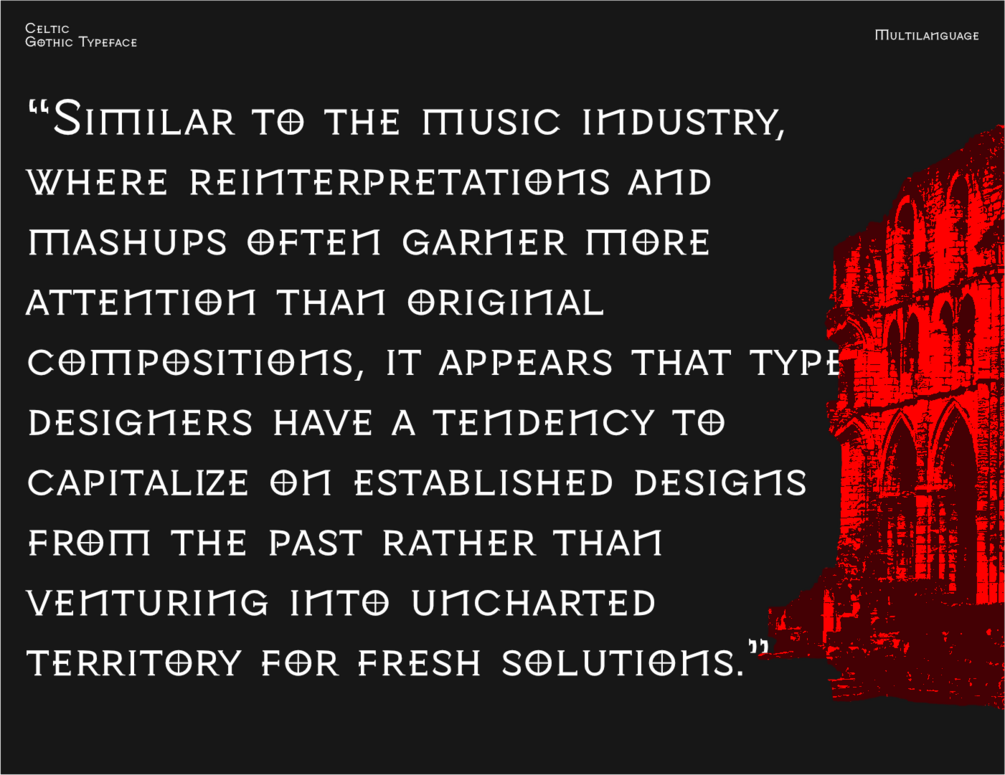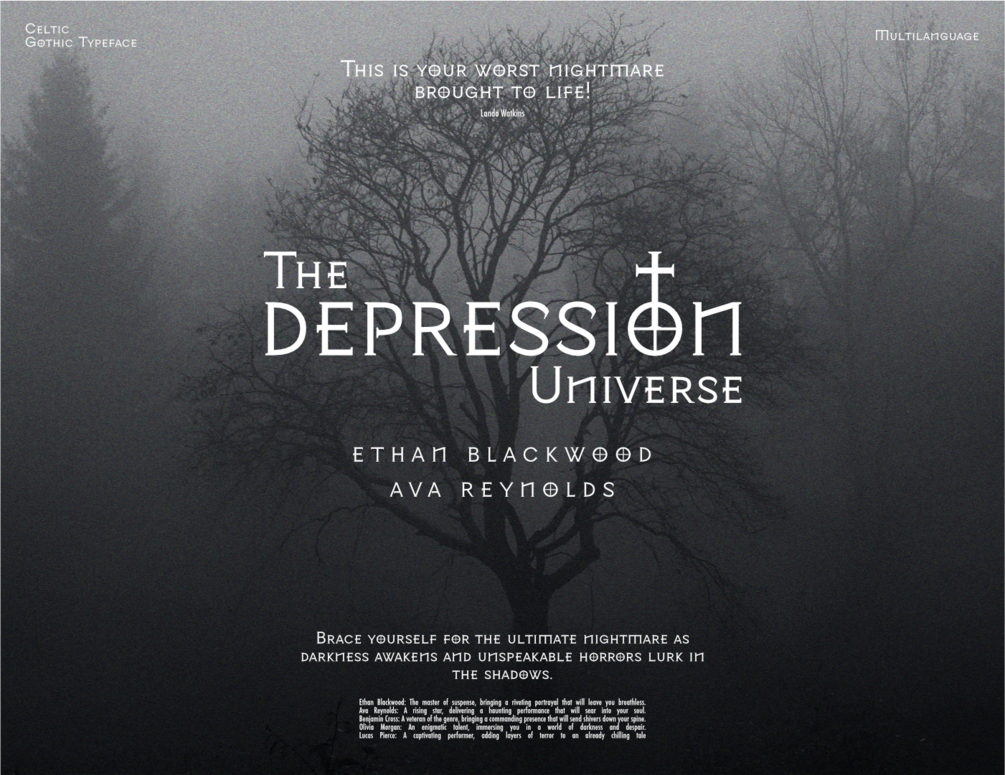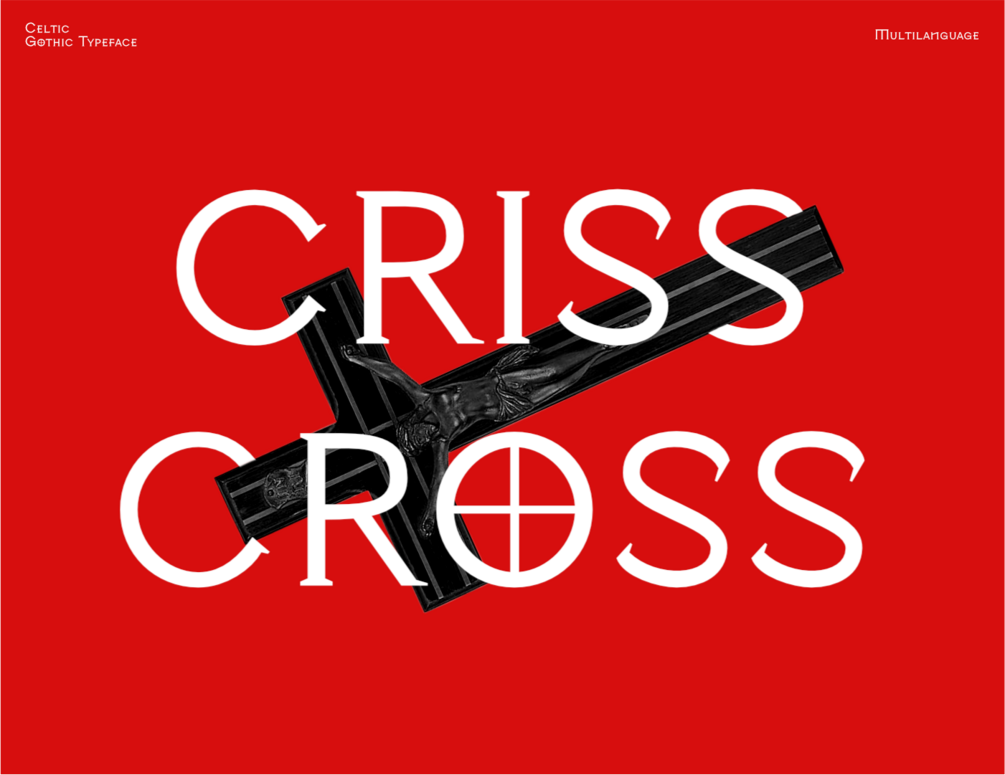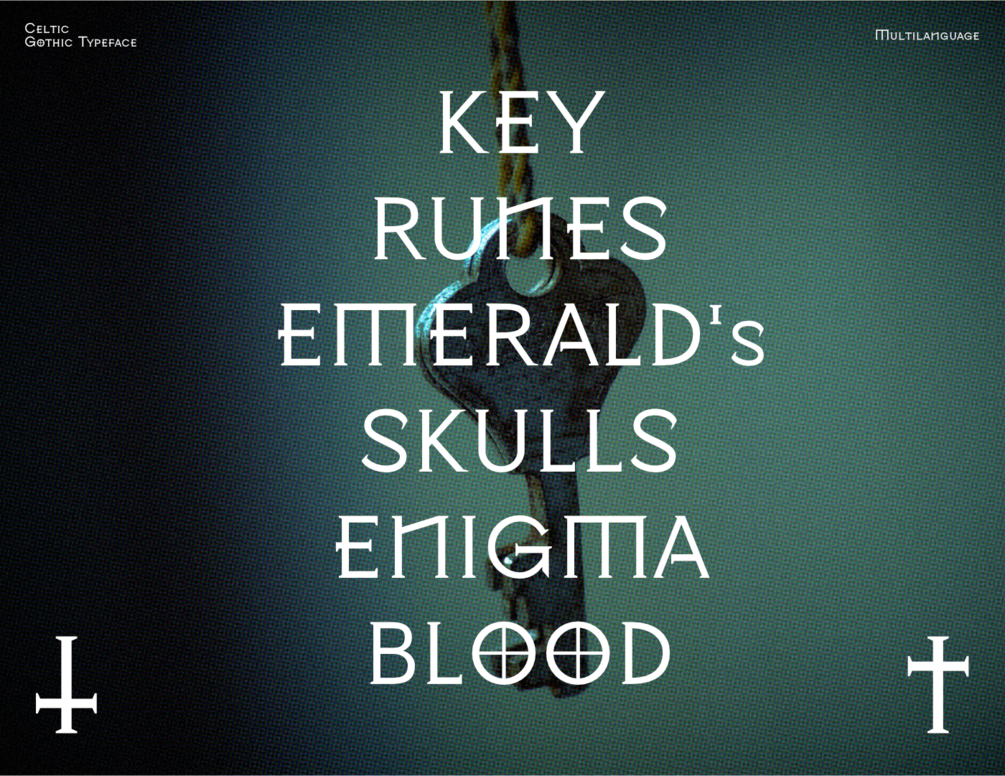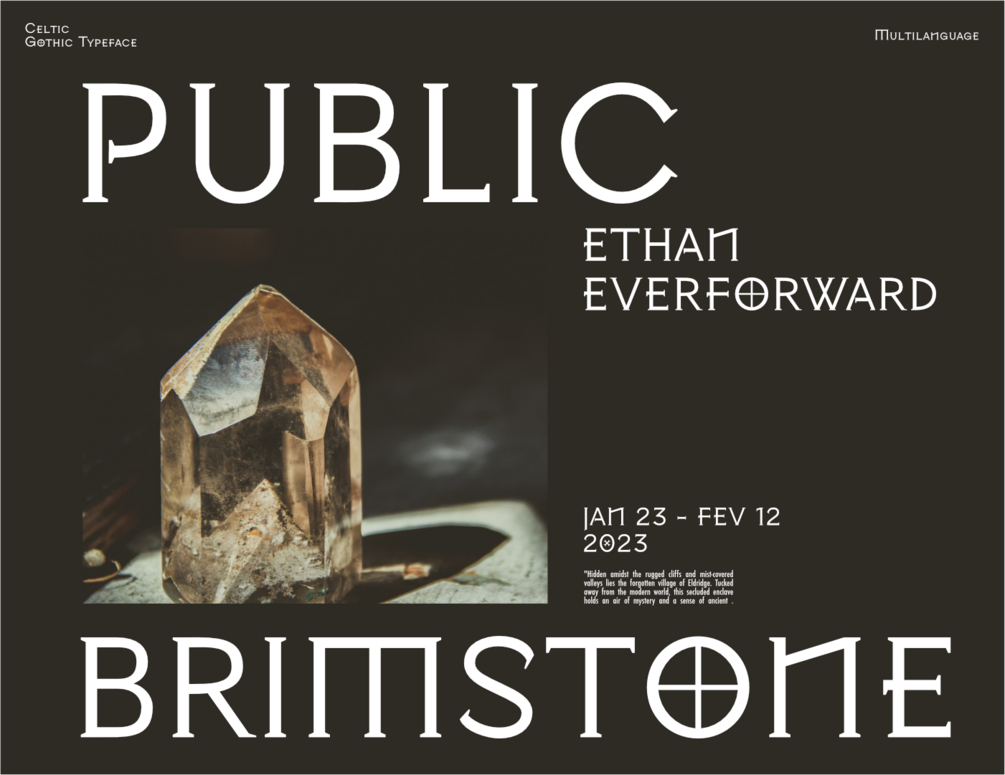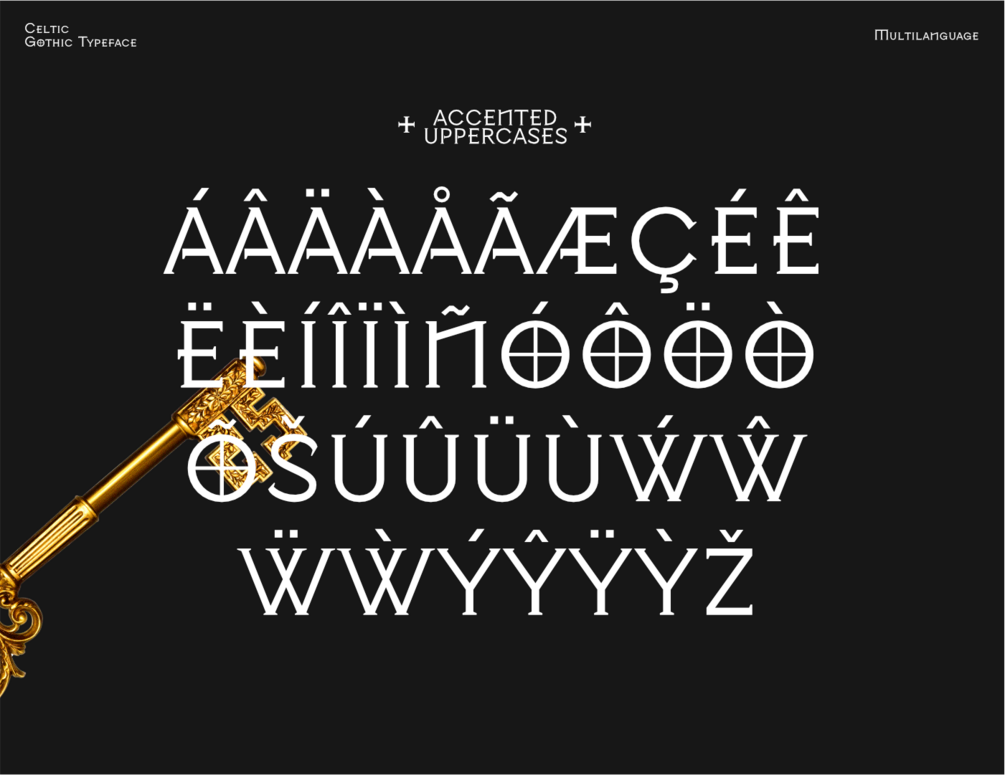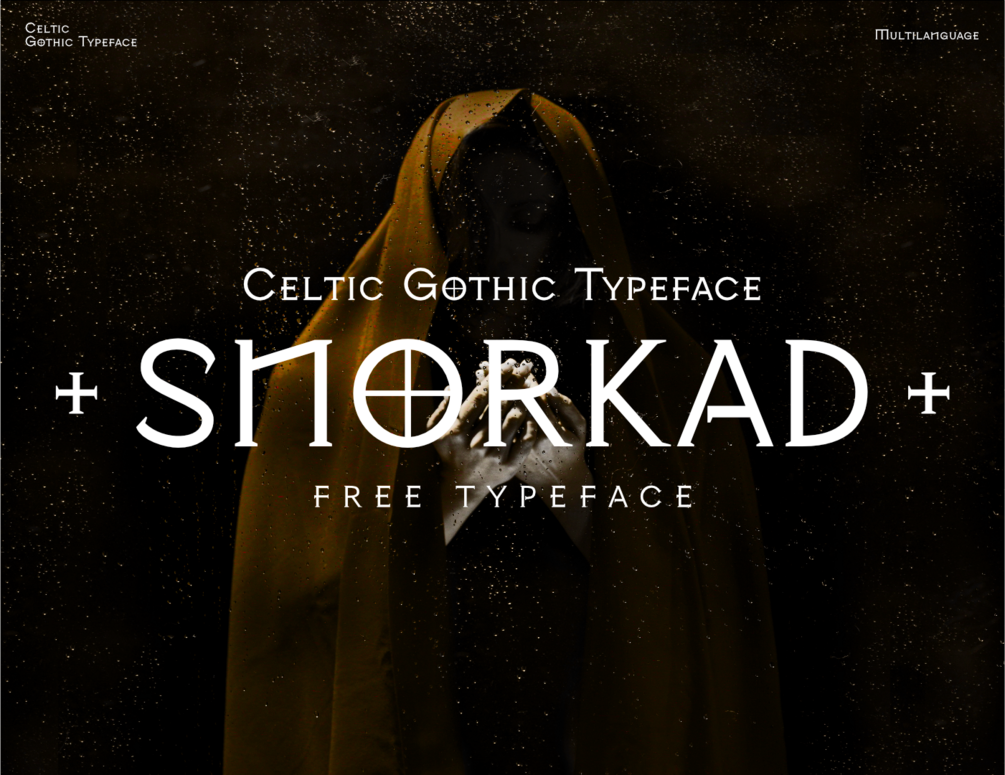
Snorkad Free Typeface
The idea for creating this typography started when I saw the movie "The Pope's Exorcist". However, before that I already had the idea of creating a typeface that was in this Celtic/Gothic style because I found this style very fascinating. I think it's because it reminds me of video games that I also enjoy in this style like "Diablo", "Doom" and "TES:V". A person who is familiar with these videogames will surely associate some of the forms of this typeface to those.
Let's call this typeface my interpretation of all of that, with some ingenuity of mine in regarding some aspects and a great passion for typography.